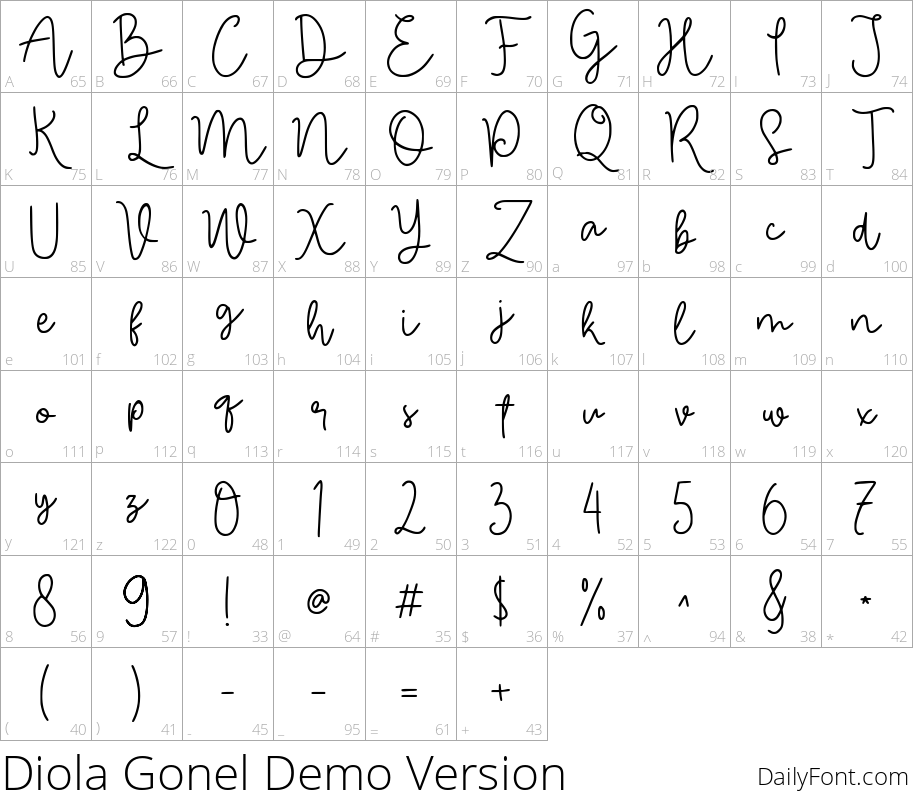
Diola Gonel
Diola Gonel is an elegant Monoline Handwritten Font that brings a touch of sophistication and personal flair to any project. Ideal for product packaging and branding, this versatile typeface can elevate your design to new heights. Its clean lines and unique style make it perfect for magazines, social media posts, and wedding invitations, allowing you to express heartfelt words beautifully against any backdrop.
Whether you're looking to create eye-catching labels, memorable advertisements, or an inviting wedding theme, Diola Gonel seamlessly blends creativity with functionality. The font's charm lies in its simplicity, ensuring that your message will resonate with audiences, rekindling a sense of warmth and intimacy. Choose Diola Gonel for your next creative endeavor, and watch your designs come to life with a refined touch that captures attention and keeps viewers engaged.